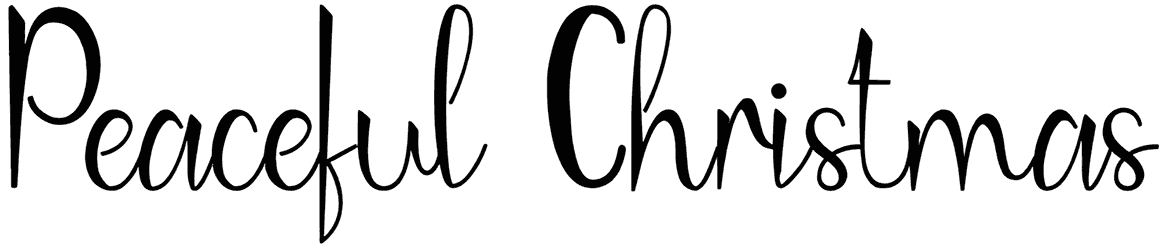
Peaceful Christmas Font
Say hello to Peaceful Christmas, a cute handwritten font with a touch of happiness. It comes with a full set of characters and multilingual which allows you to use it in different projects, but it might be a bit unreadable.
This Christmas font has a sharp, playful display and will be very good for greeting cards, book covers, special events, product packaging, and children’s books.